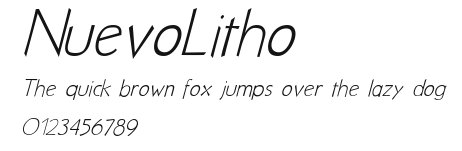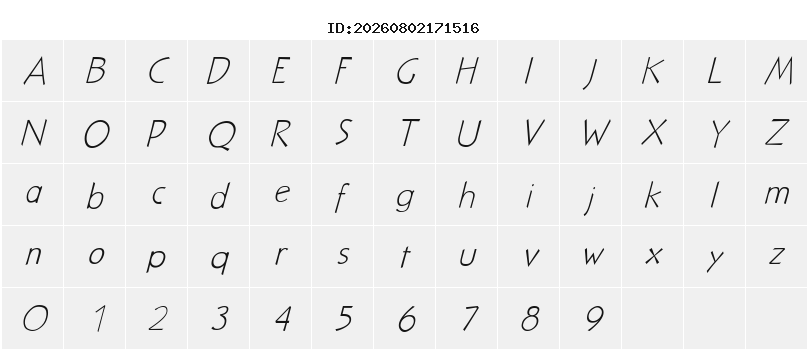
• Font Name: NuevoLitho
• Font Style: LightItalic
• Font ID: Altsys Fontographer 4.0.3 NuevoLitho LightItalic
• Full Font Name: NuevoLitho LightItalic
• Version: Altsys Fontographer 4.0.3 22.03.1995
• PostScript Name: NuevoLithoLightItalic
• Character Count: 129
About NuevoLitho.ttf
NuevoLitho.ttf is a modern, elegant sans-serif font designed for ultimate readability and visual harmony. Perfect for branding, headlines, web design, and print materials.